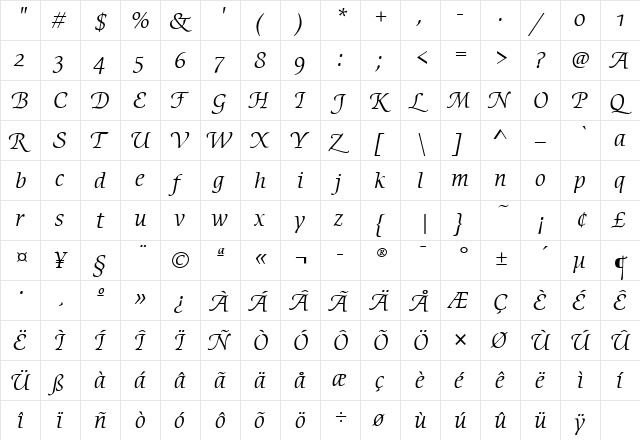
CerigoSwashITC Italic
Design Context for CerigoSwashITC Typeface
CerigoSwashITC brings a calligraphic fluidity to the page — its connecting strokes and expressive curves give it an unmistakably human quality.
Font Pairing: Combine CerigoSwashITC with a simple geometric sans for maximum contrast — the tension between flowing curves and clean structure is a classic typographic pairing.
Pro Tip: Pair CerigoSwashITC with a clean sans-serif for supporting text. The contrast between fluid script and geometric structure creates an elegant typographic hierarchy.